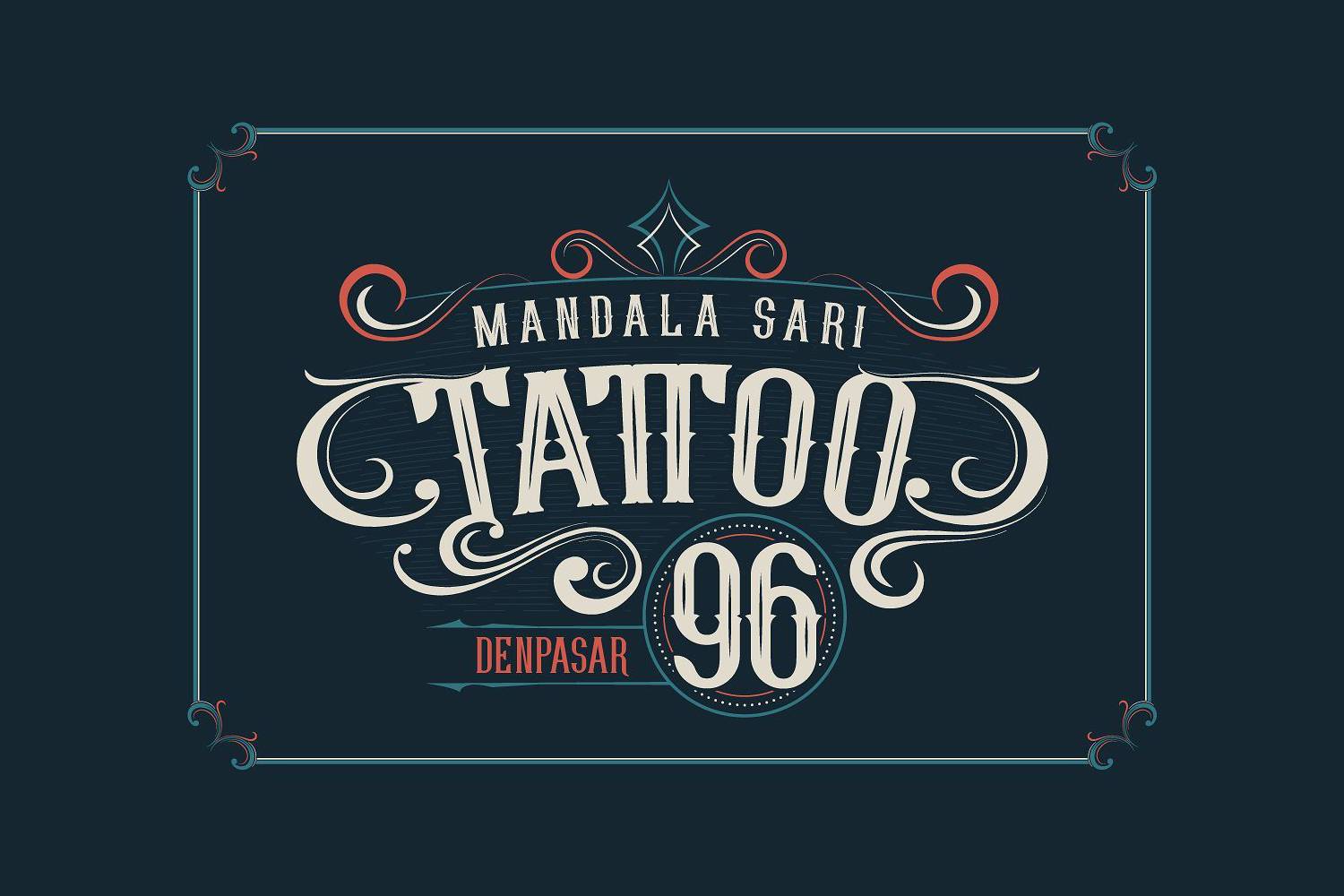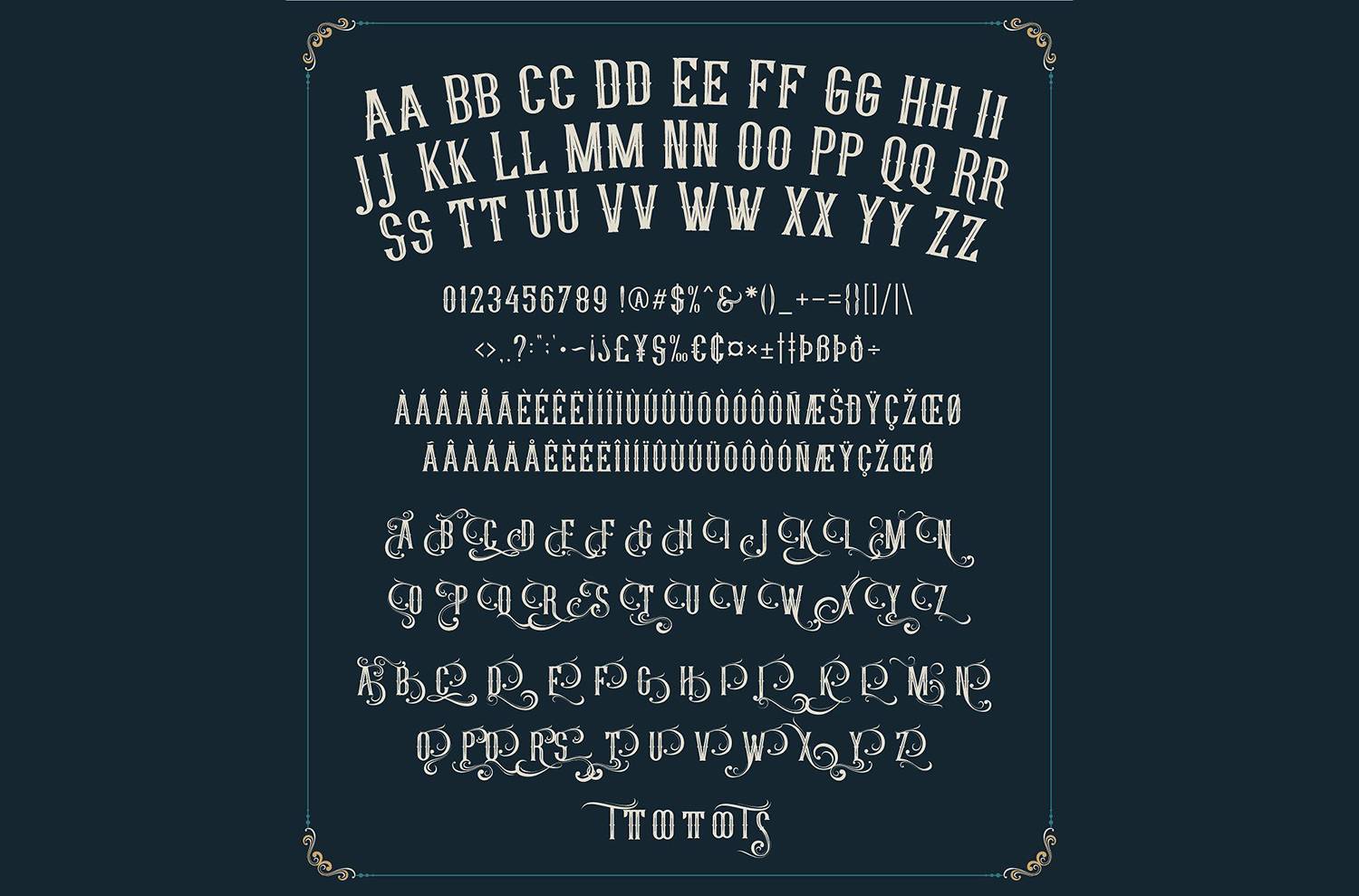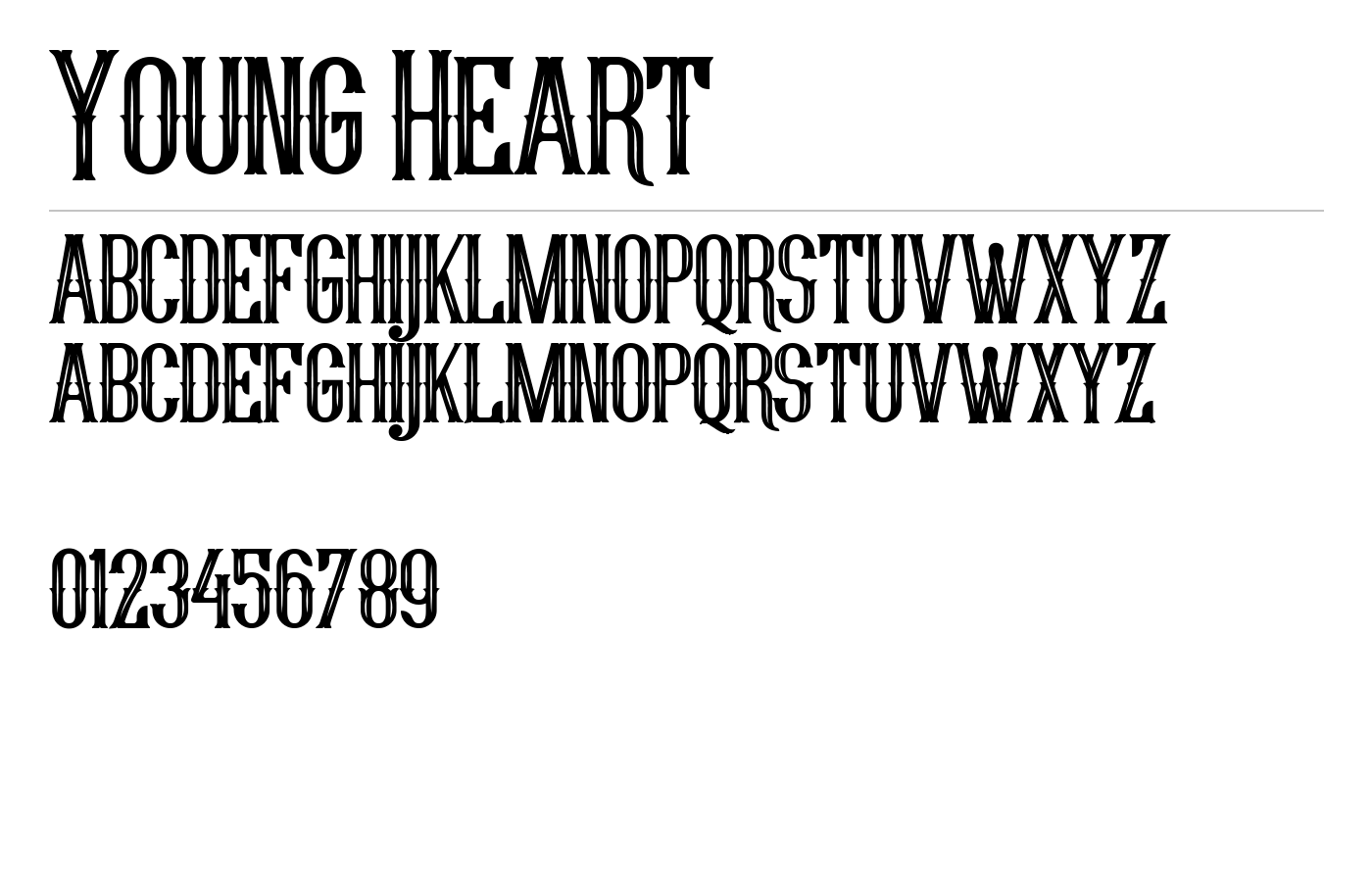
Young Heart is a tall, condensed serif font with sharp, high-contrast strokes and a distinctive vintage flair. Its intricate detailing and narrow proportions make it ideal for stylish headlines, logos, and branding that seek to evoke an elegant, classic, yet bold personality. This font works best in display settings where its unique character can stand out and create a strong visual impression.
Young Heart Font
About Young Heart Font
| Font family | Young Heart Font |
| Designer | Alit Suarnegara |